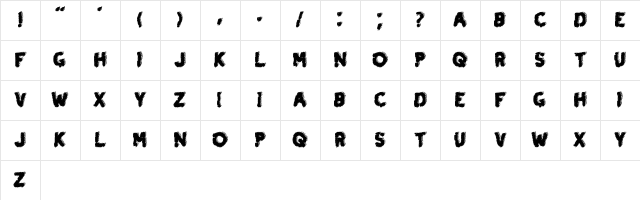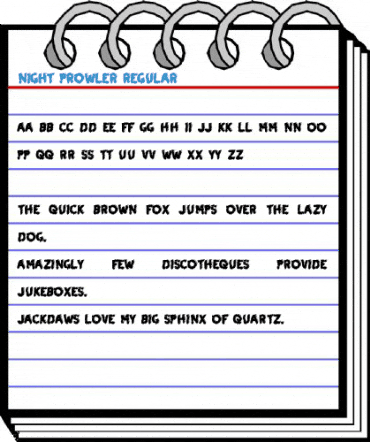
Complete Night Prowler Regular glyph index. Displaying only characters natively supported by Night Prowler Regular font.
Night Prowler is a composed and adaptable typeface that performs quietly and consistently across a wide range of design contexts.